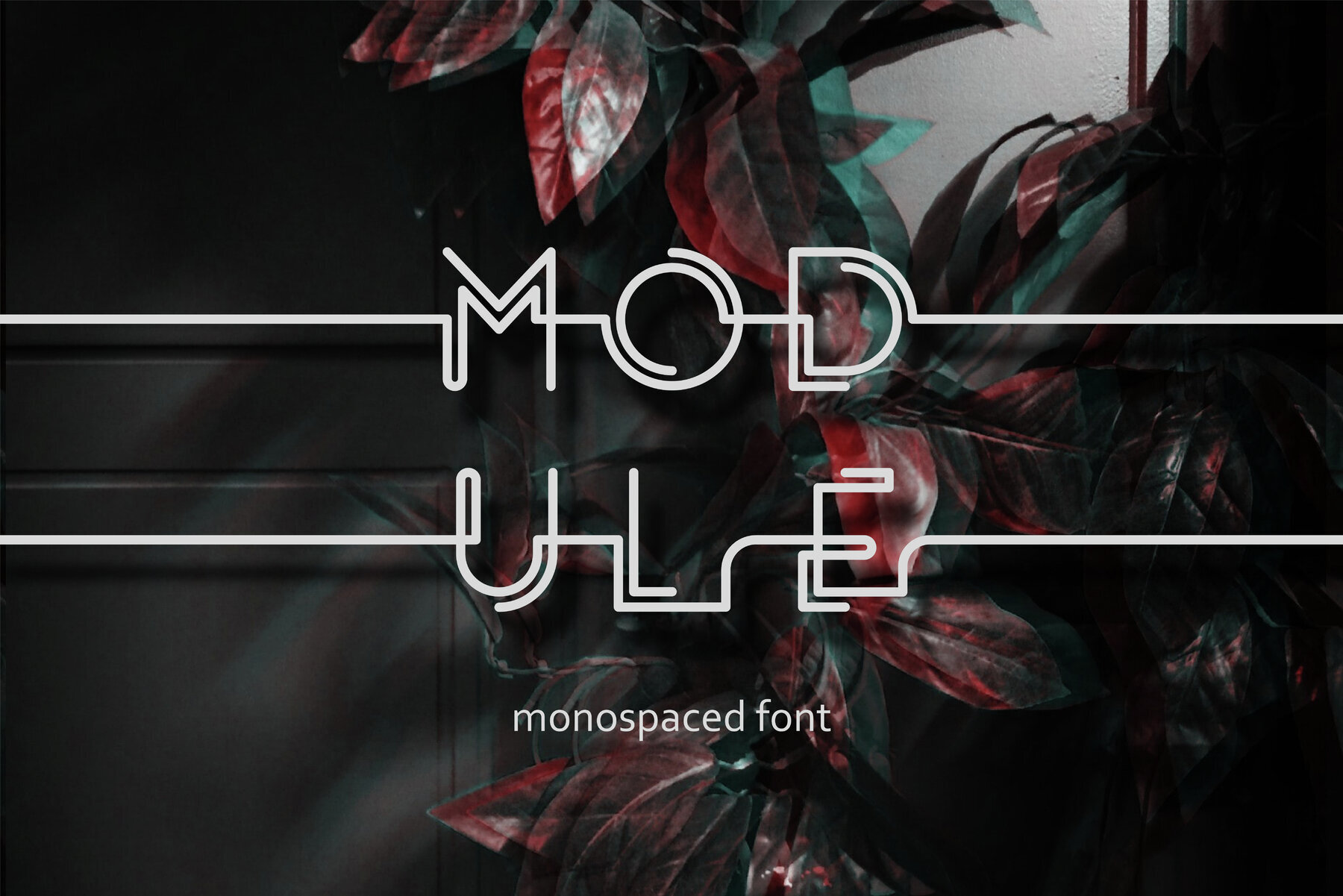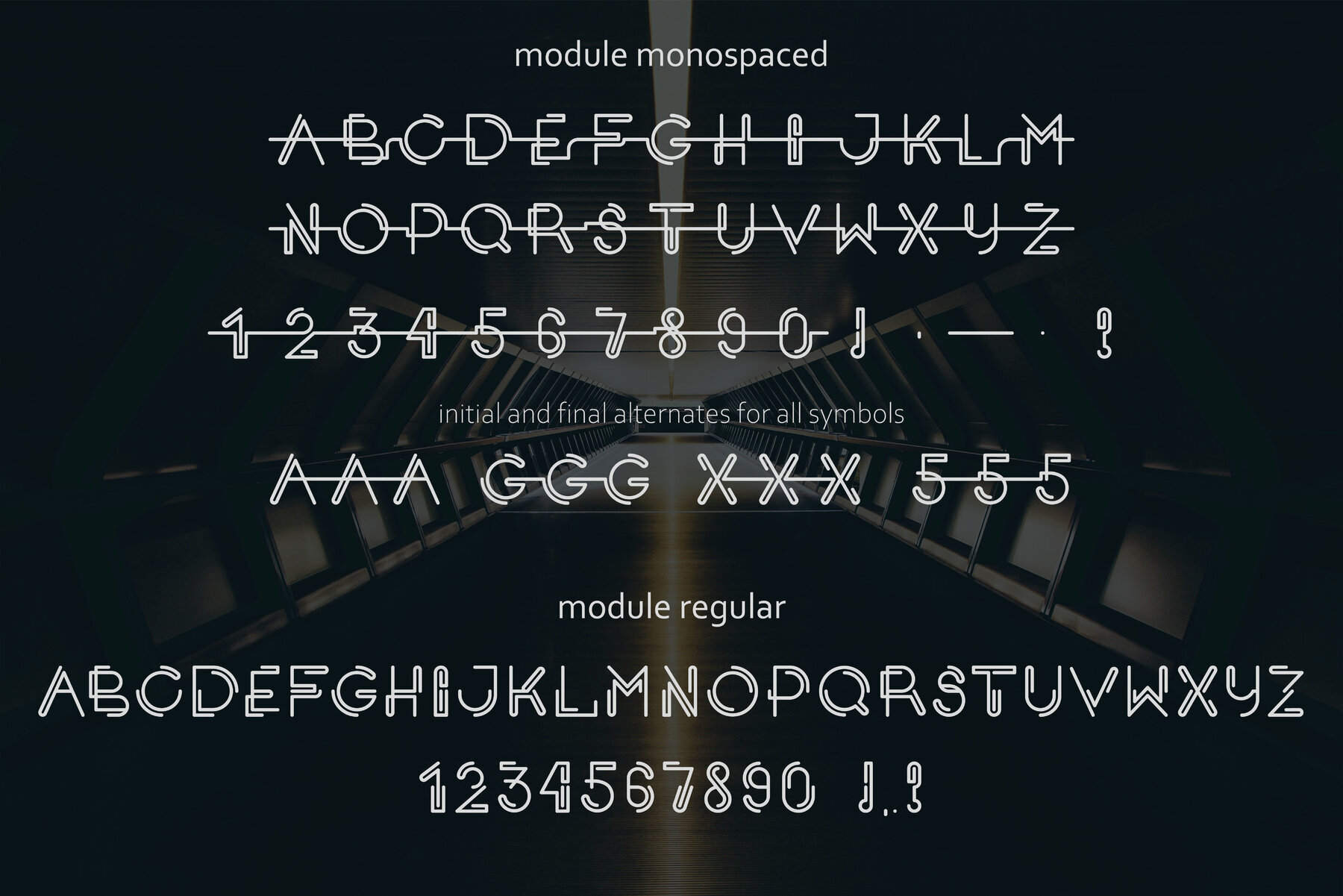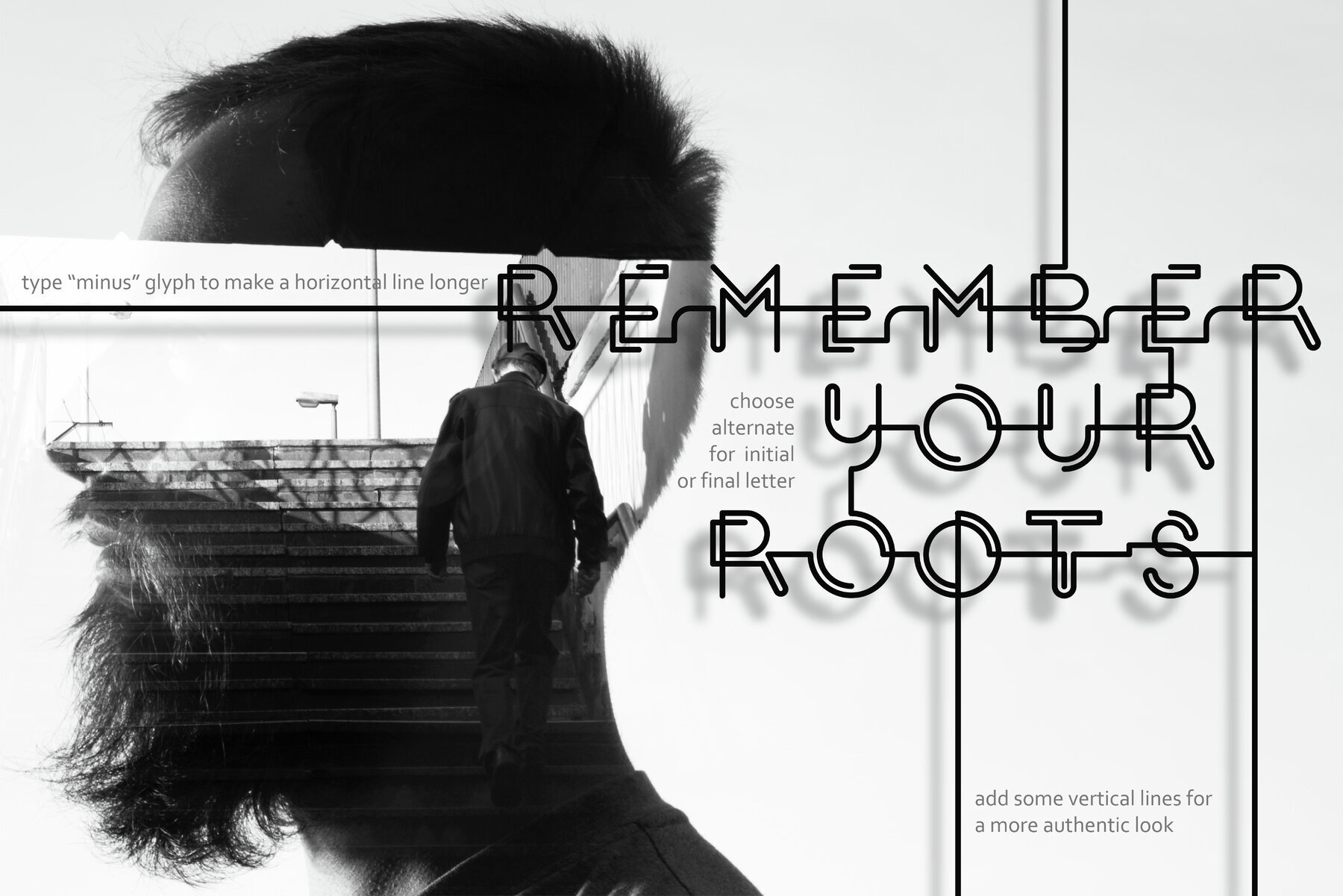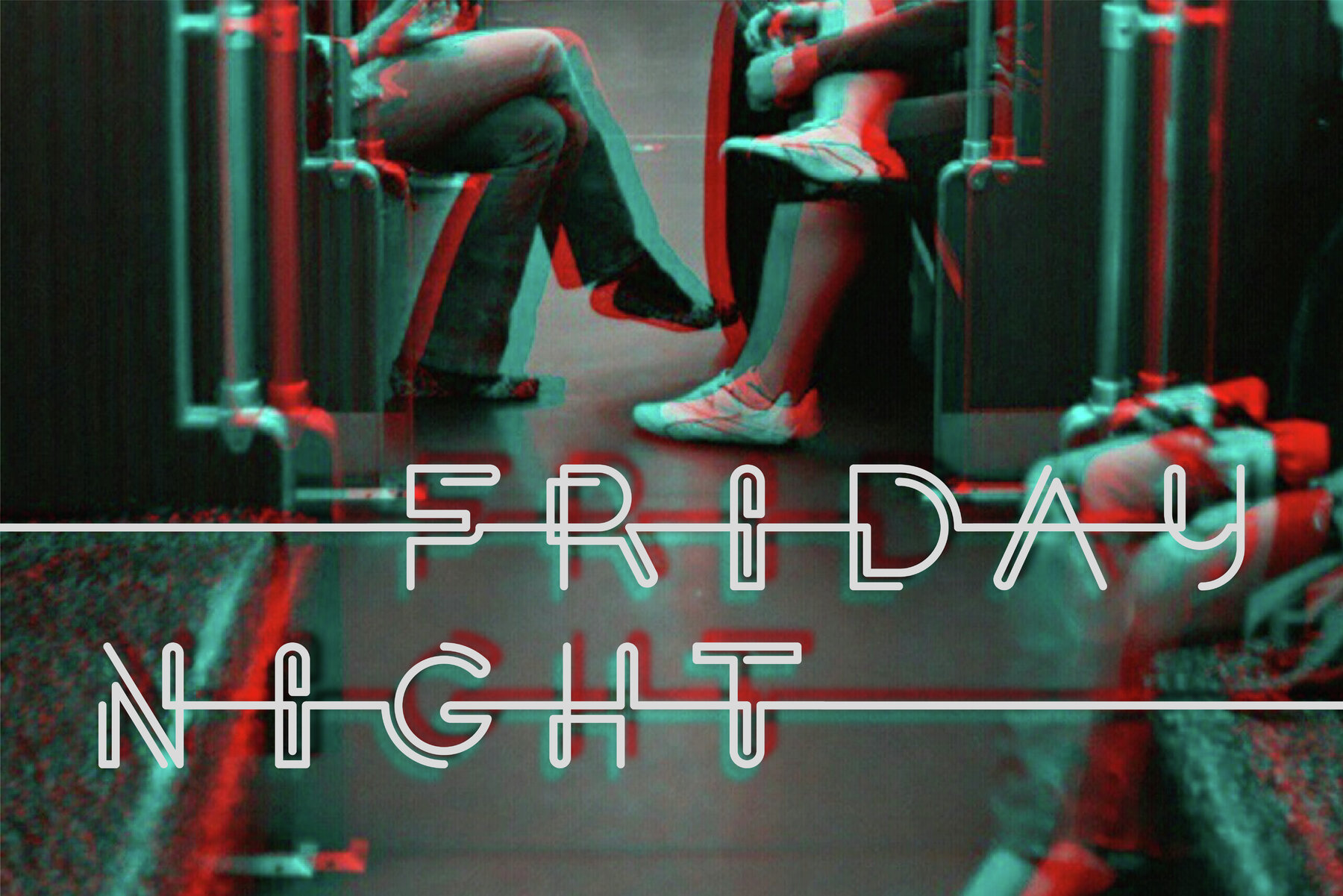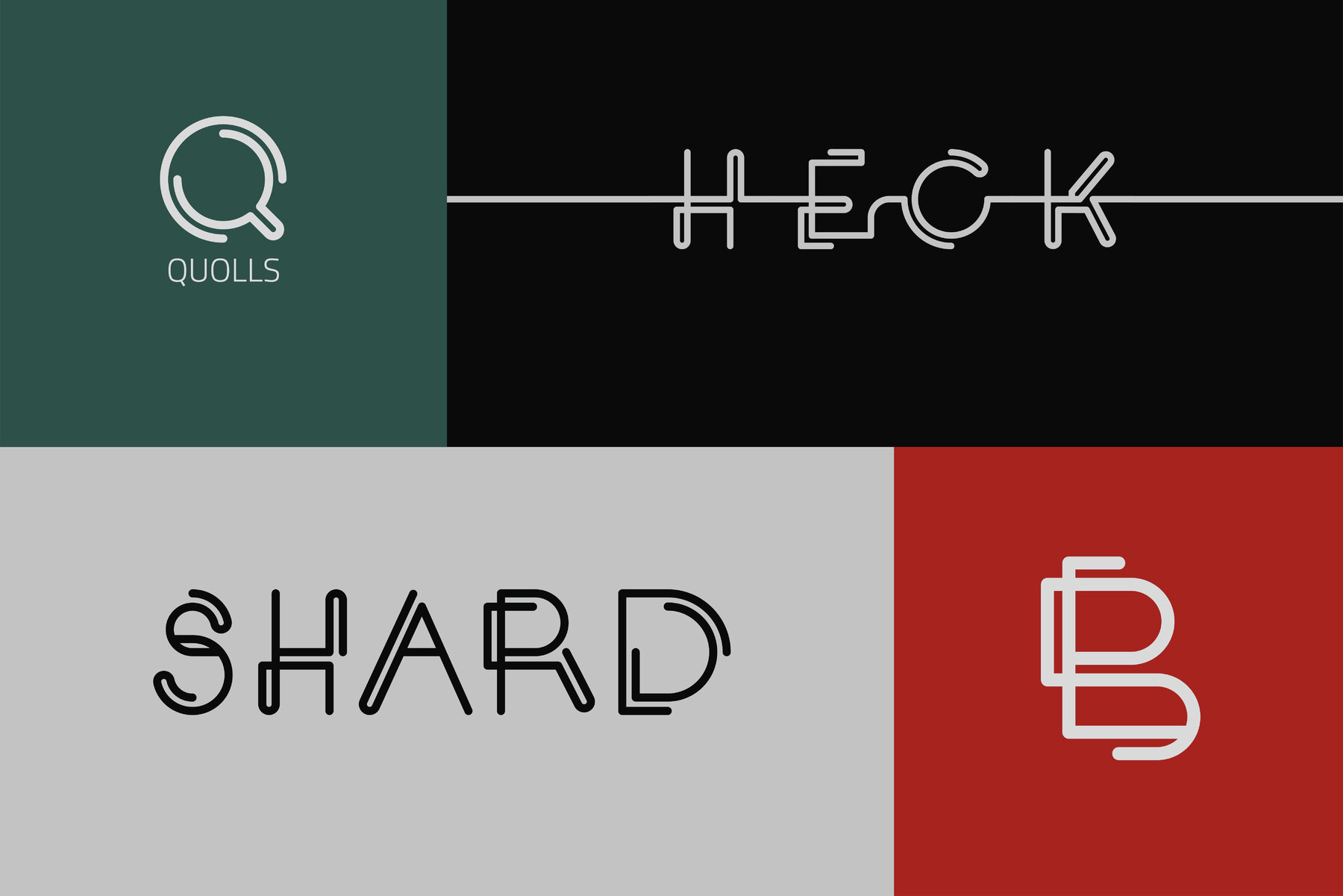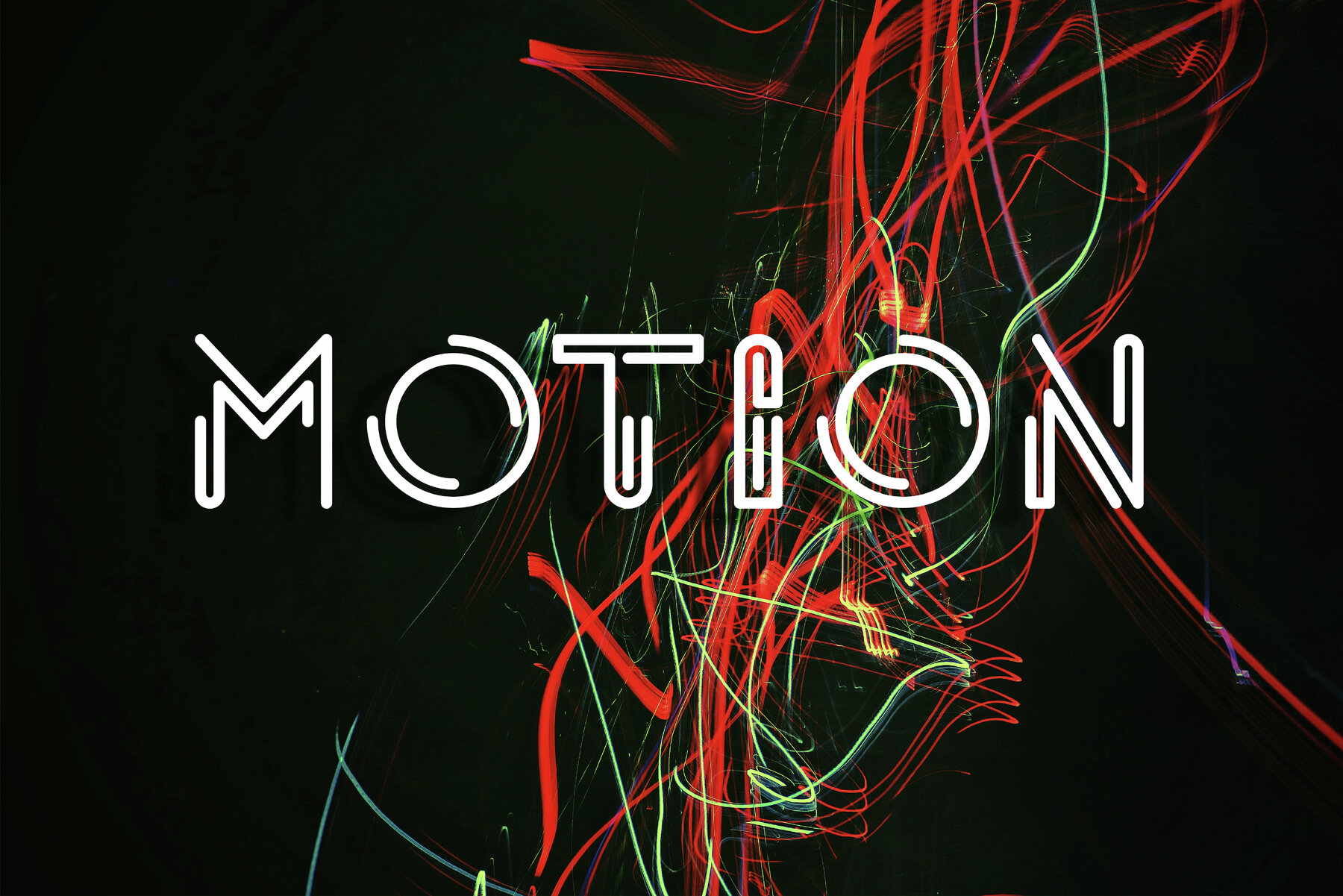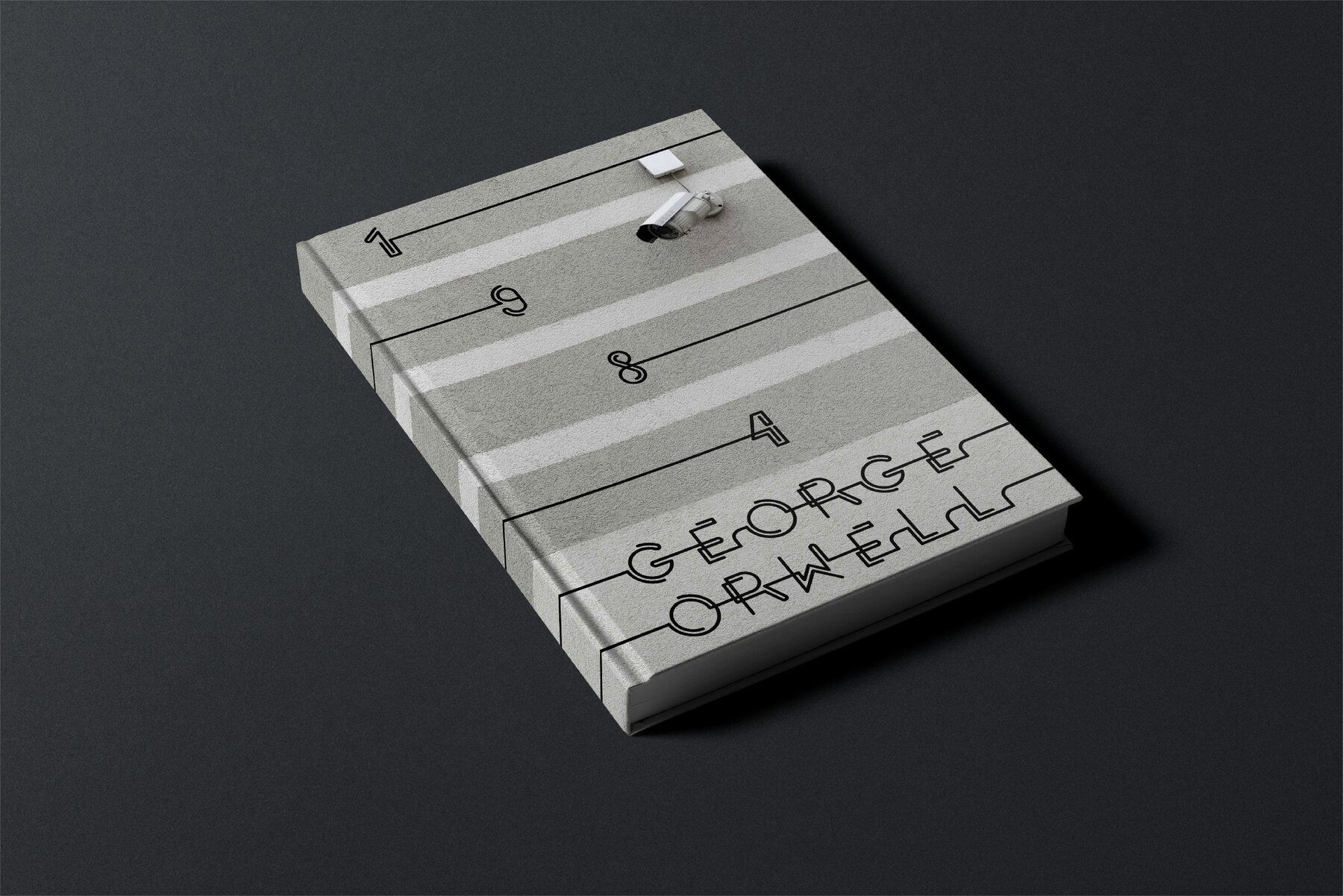
Module Font
Enter a new design era with the innovative Module font, a monospaced creation that brings a touch of the future to your projects. Ideal for branding and striking poster designs, Module offers two unique typefaces to enhance your visual storytelling.Embrace Futuristic Typography with Module
Distinct Typeface Options